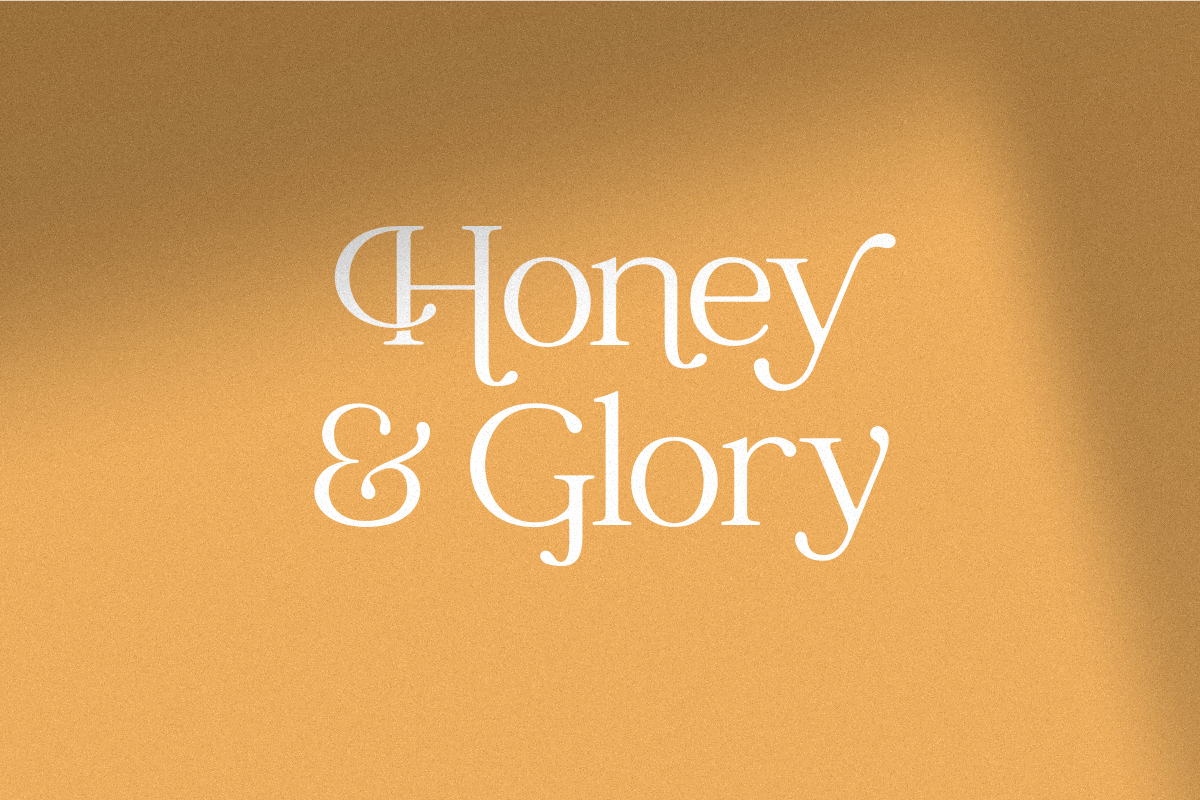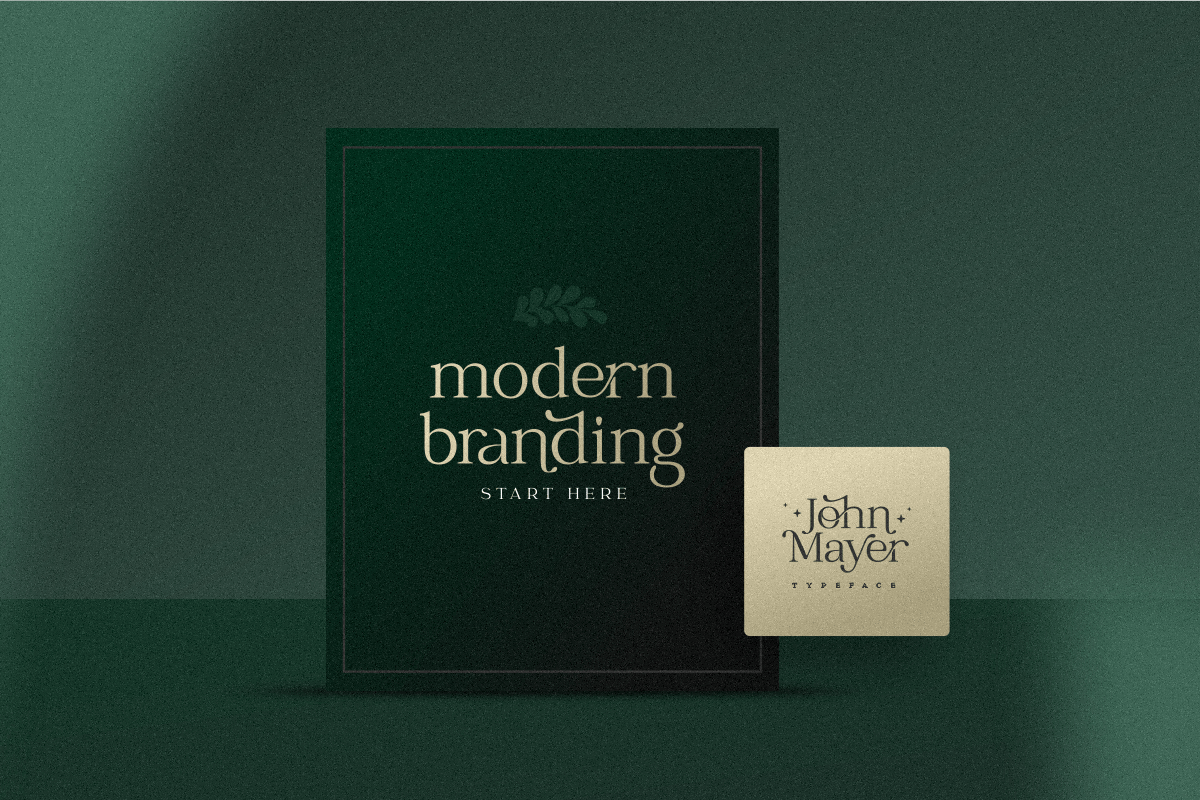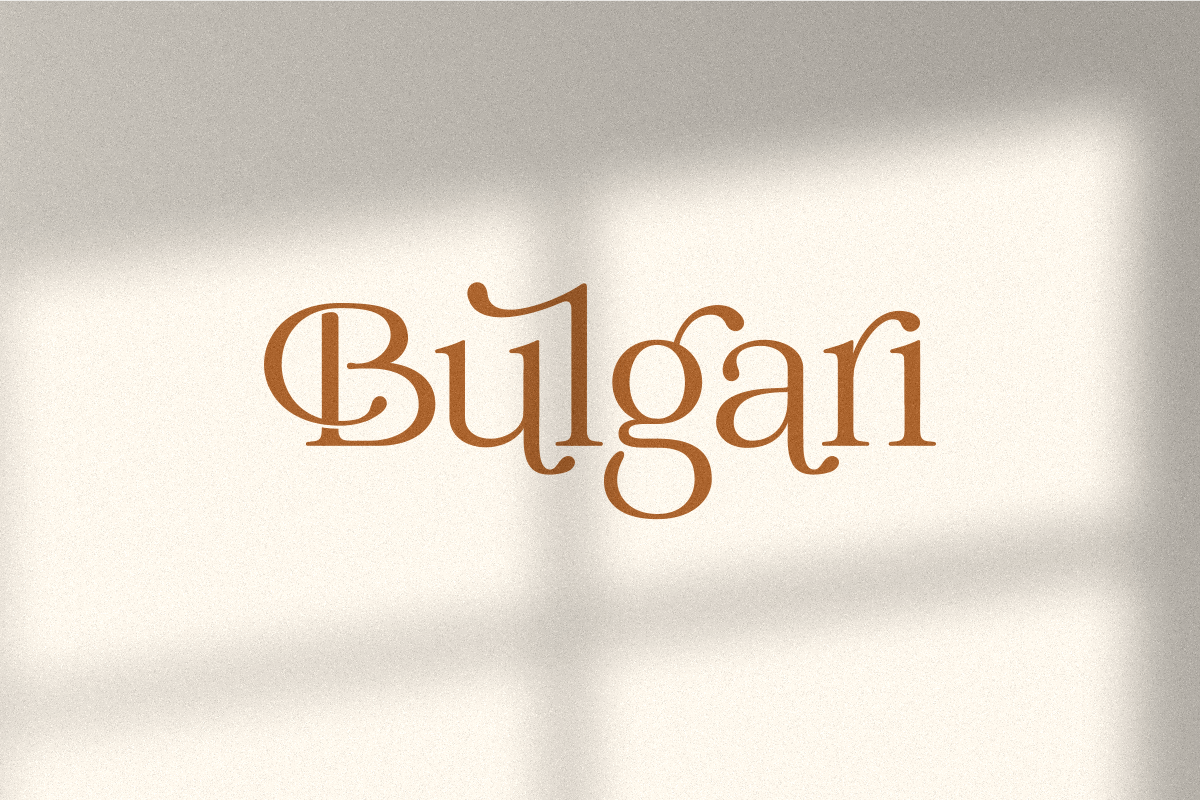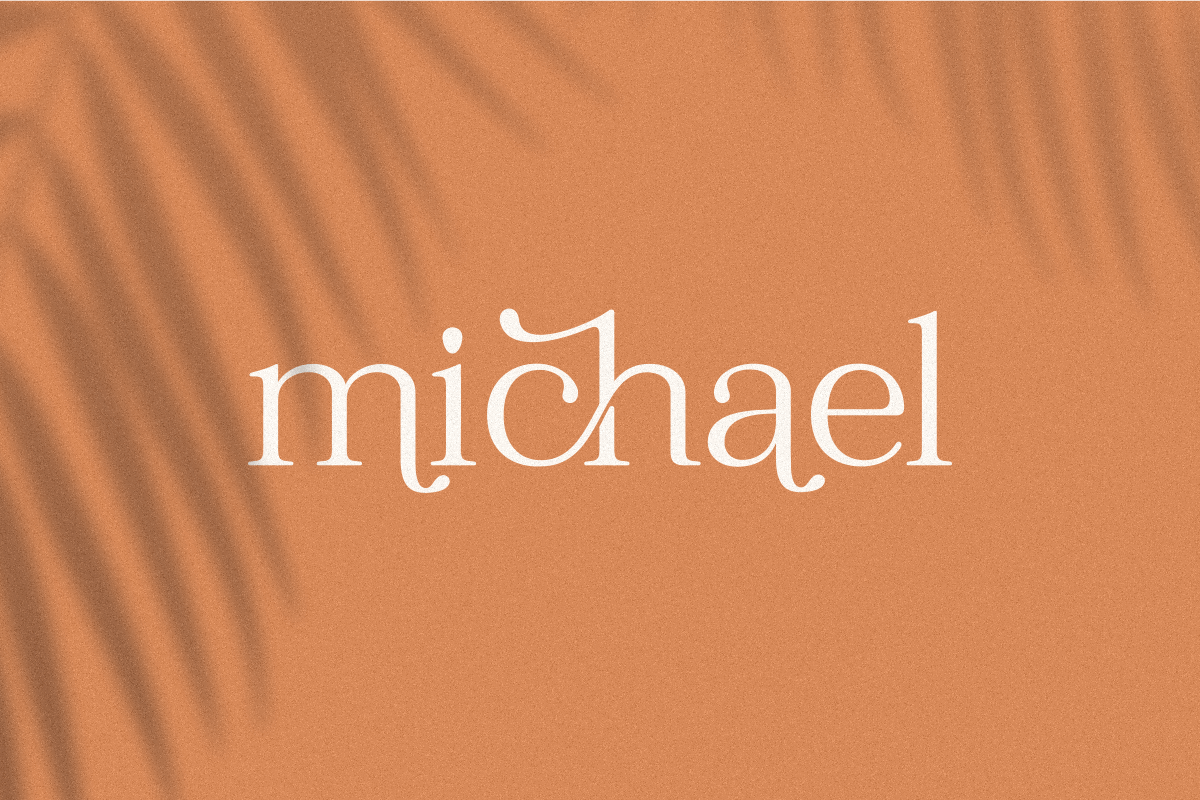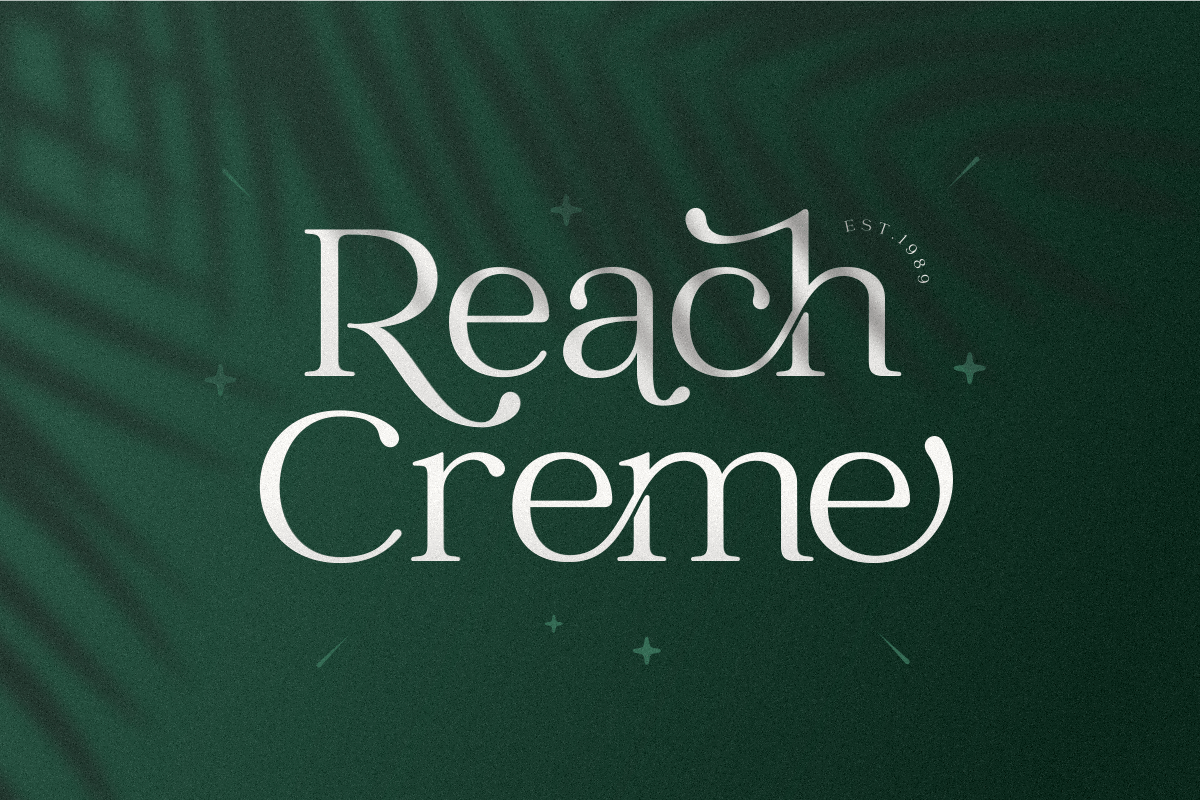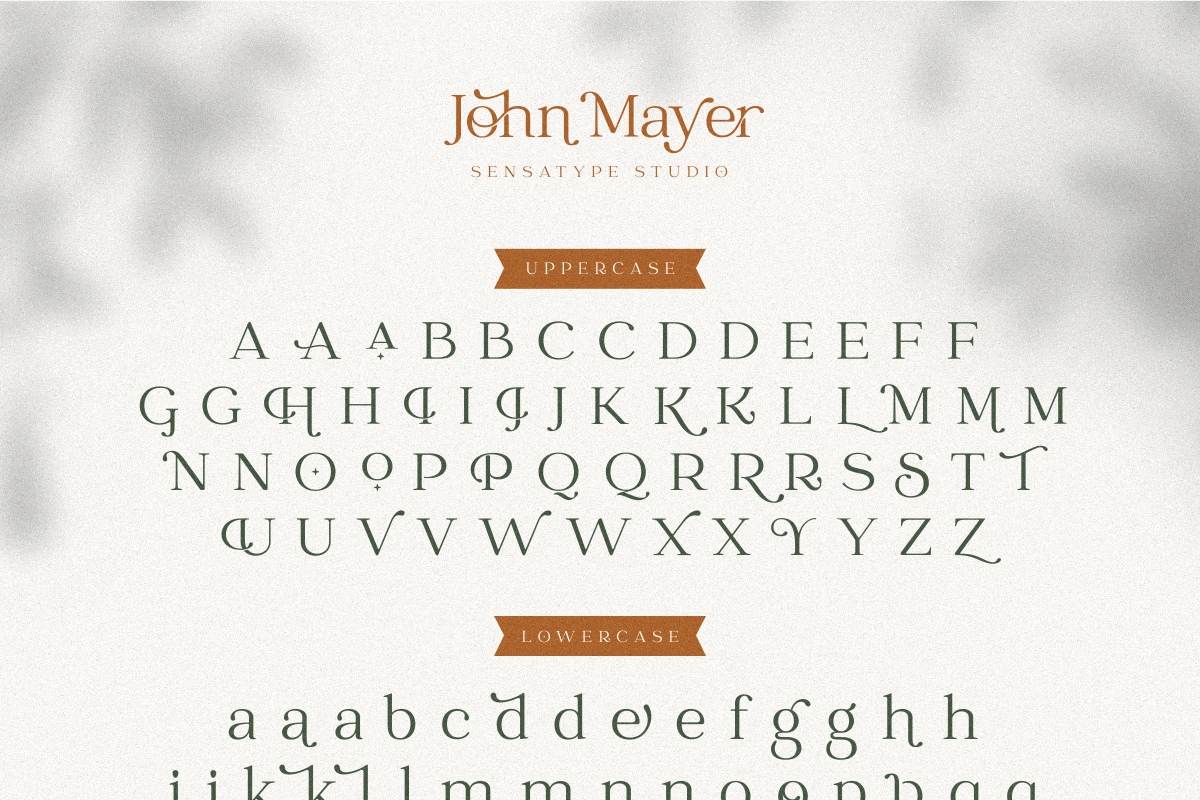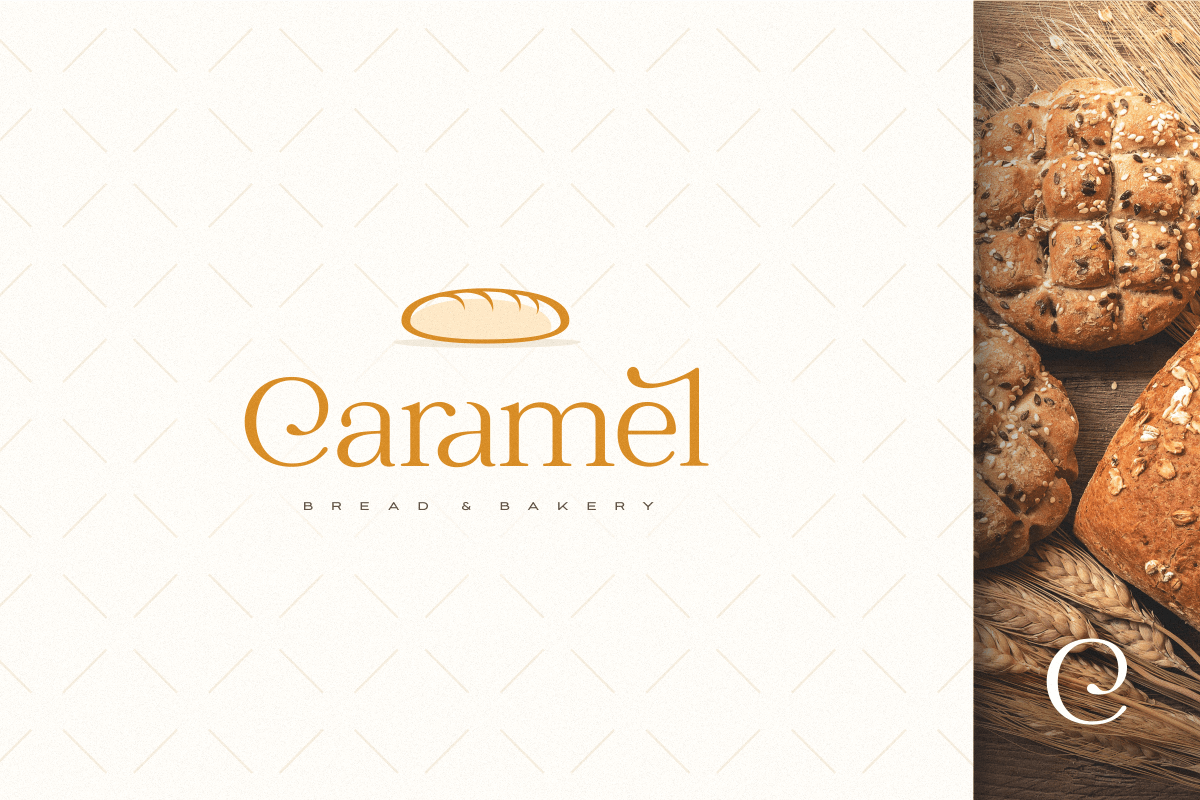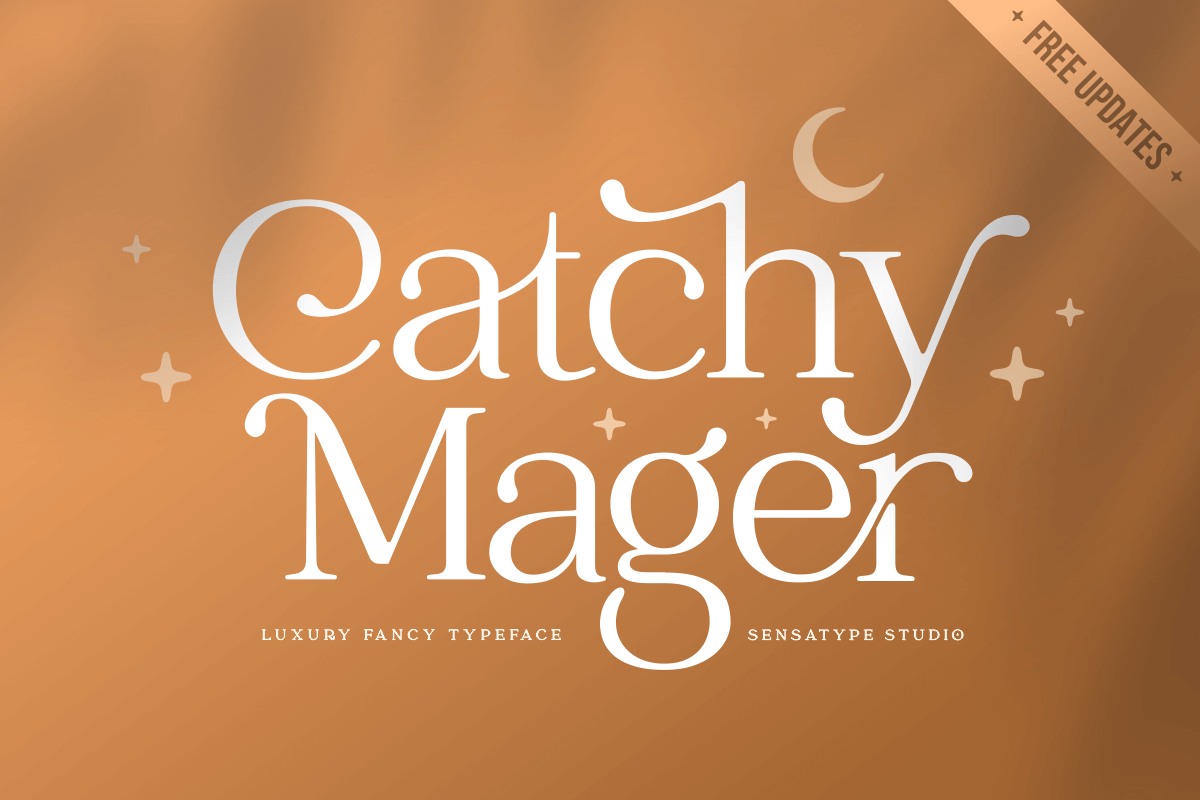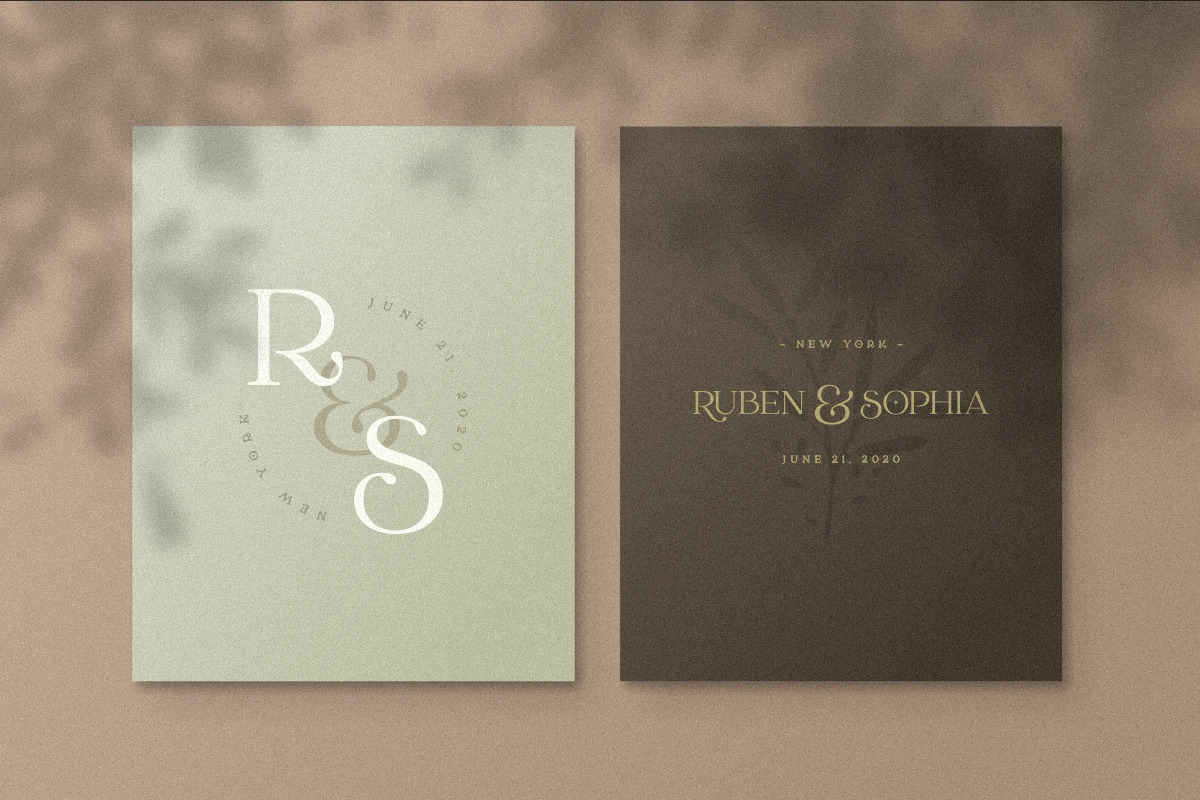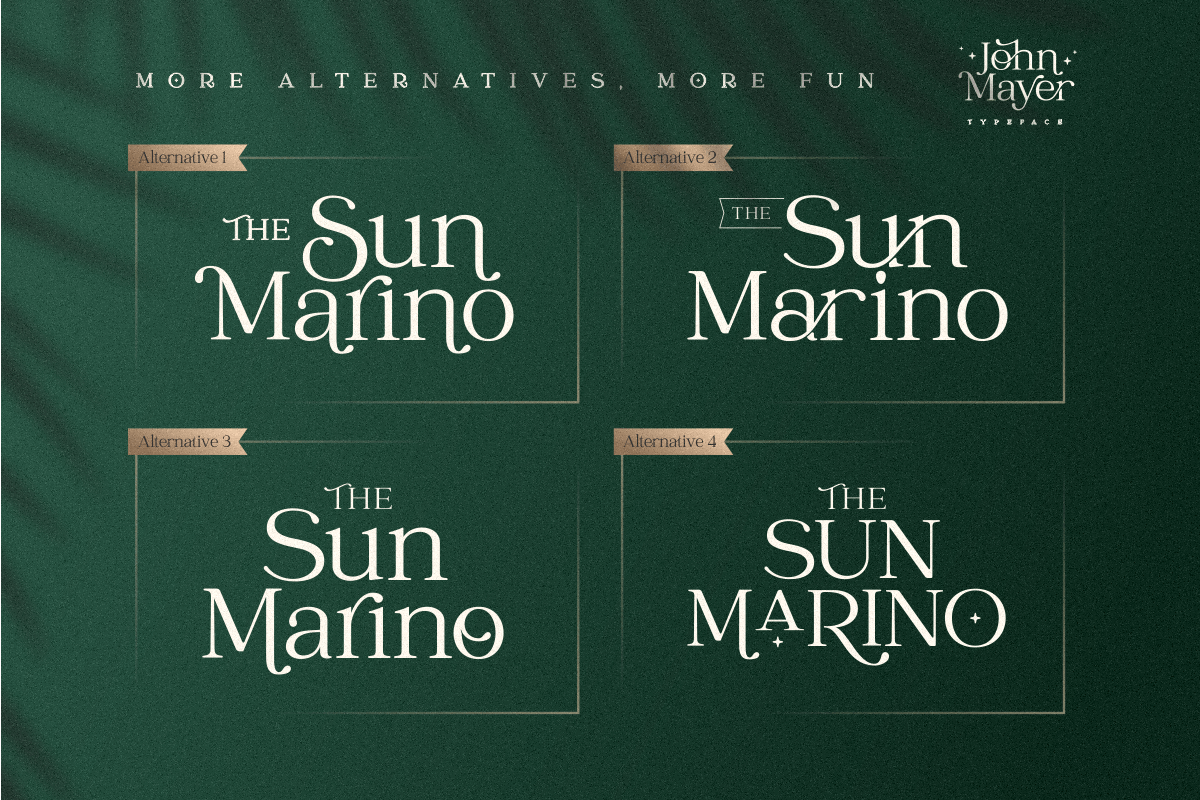
Catchy Mager - Fancy Ligature Font
Catchy Mager (Former John Mayer) is a unique and very elegant font for brand and logo design.
Based on our experience as a graphic designer who works for a lot of companies, we often are requested to design a logo in a unique style but with an elegant shape. So, we try to brainstorming and create this font to make the idea is going out. This is perfect for BRANDING and LOGO DESIGN. You will get classy, elegant, and certainly unique logos with this font.
To make it look more unique, here we prepared some ligatures:
ab ah am an ar ap at cb ch cm cn cr eb eh em en ep er ub uh um un up ur fl fi ff ft ga gi it ai
Include Fancy Style on Every Uppercase and Some Lowercase
Catchy Mager is also included full set of:
uppercase and lowercase letters
multilingual symbols
numerals
punctuation